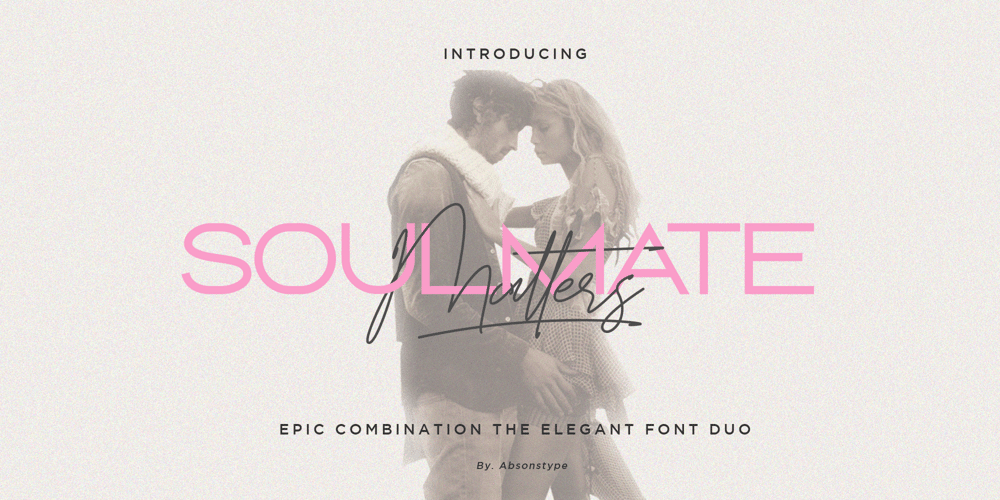
Soulmate Matters Font Family was designed by Edhi Prayitno and published by Absonstype. Soulmate Matters contains 2 styles and family package options. Soulmate Matters are the epic combination font duo, wide all caps style of the sans and elegant modern script feel nice balanced. Provide with ligatures in script makes the design letter looks nice. Honestly it works perfectly for headlines, logos, posters, packaging, T-shirts, Branding and much more.Recommended to use in Adobe Illustrator or Adobe Photoshop with opentype feature.Ligatures feature is default setting in Adobe Illustrator or Adobe Photoshop in Uppercase character. So when you want not to use the ligatures.Open glyphs panel : In Adobe Photoshop choose tool Window Character and then please click fi symbol In Adobe Illustrator choose tool Window Type Open Type and then please click fi symbol If you have questions, just send me a message and I’m glad to help.Have a great day,Absonstype